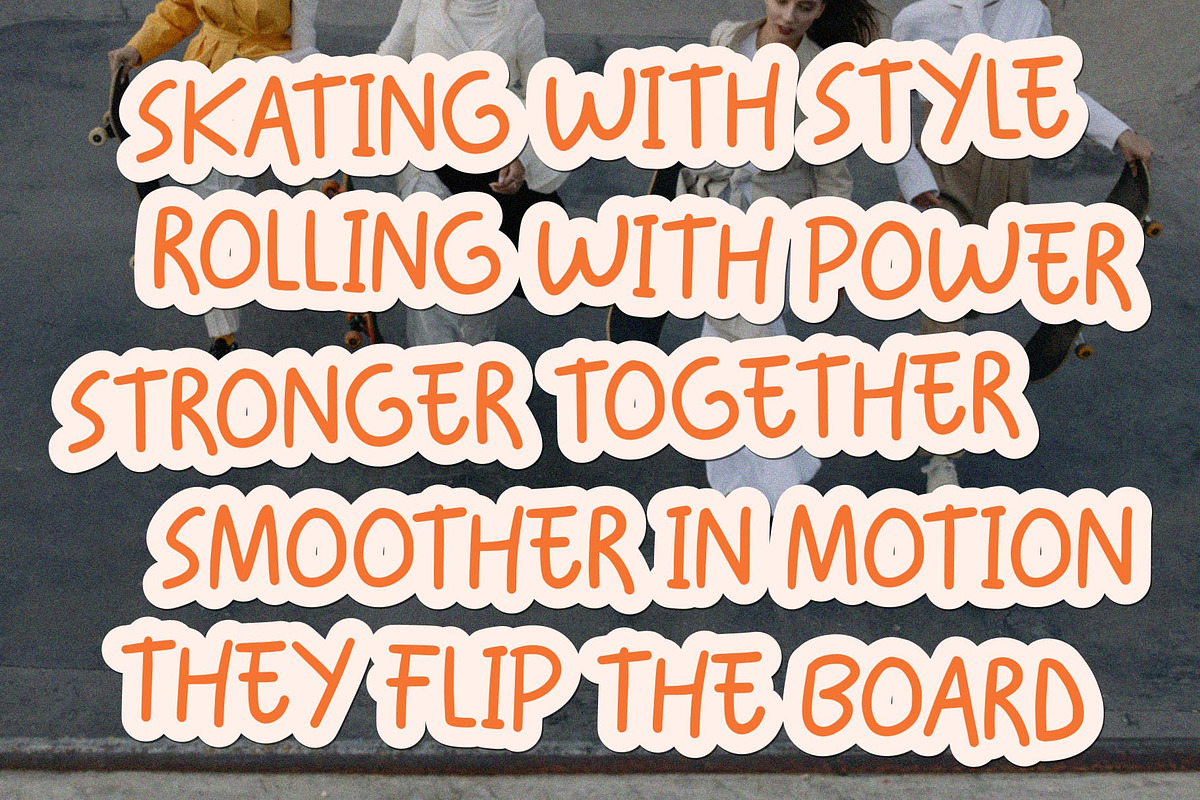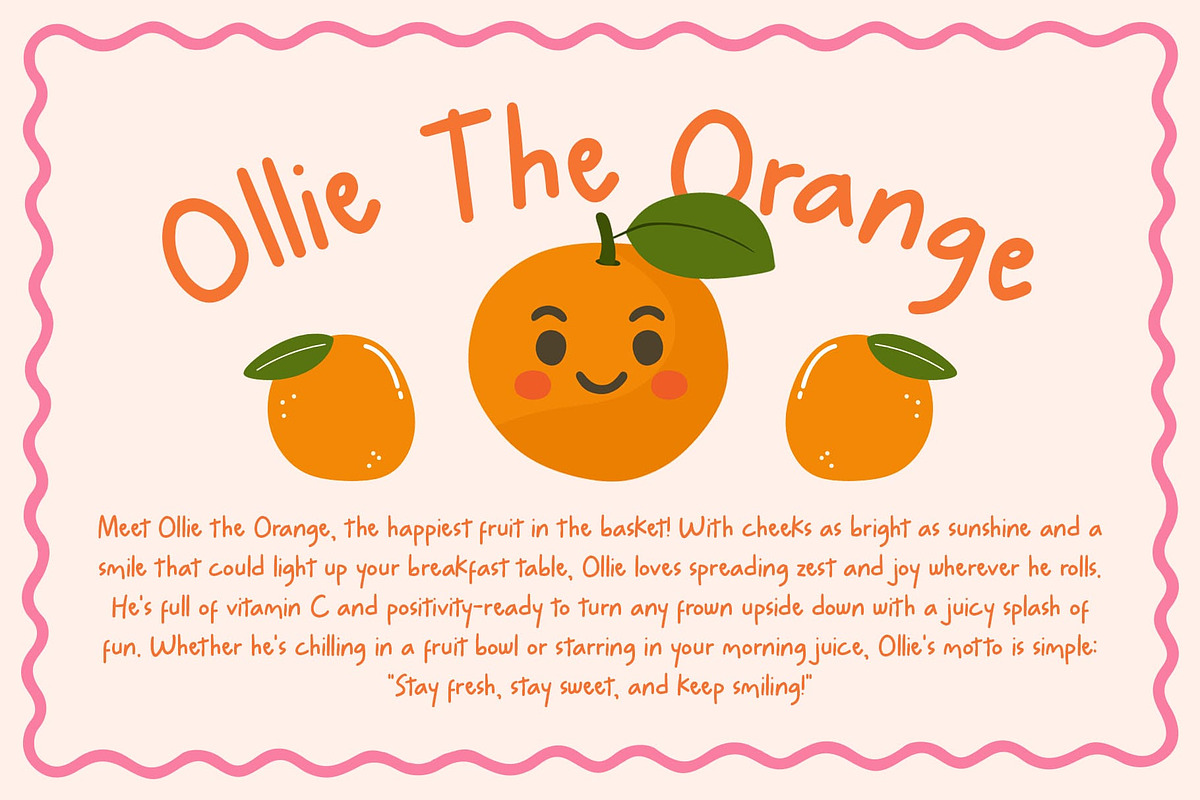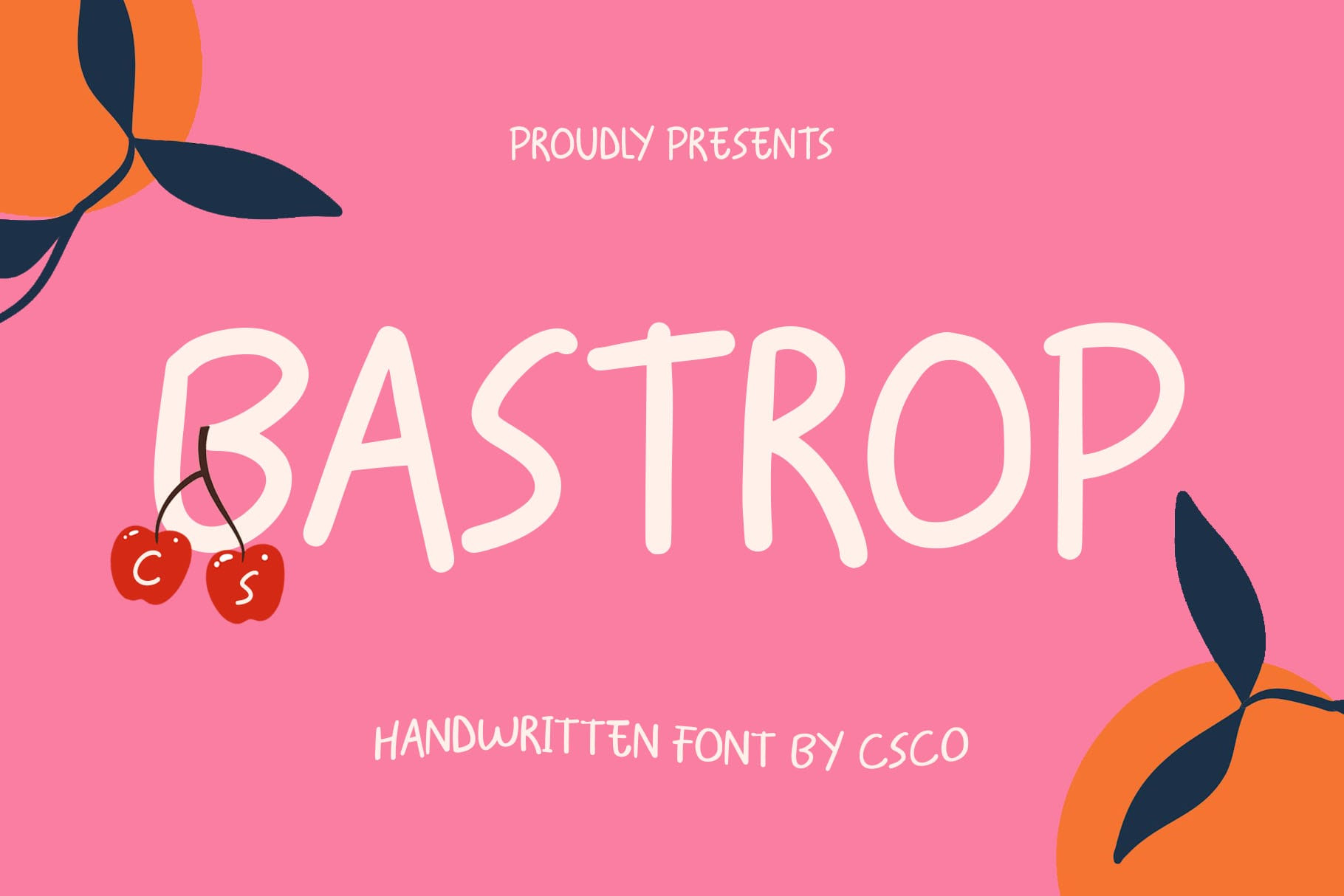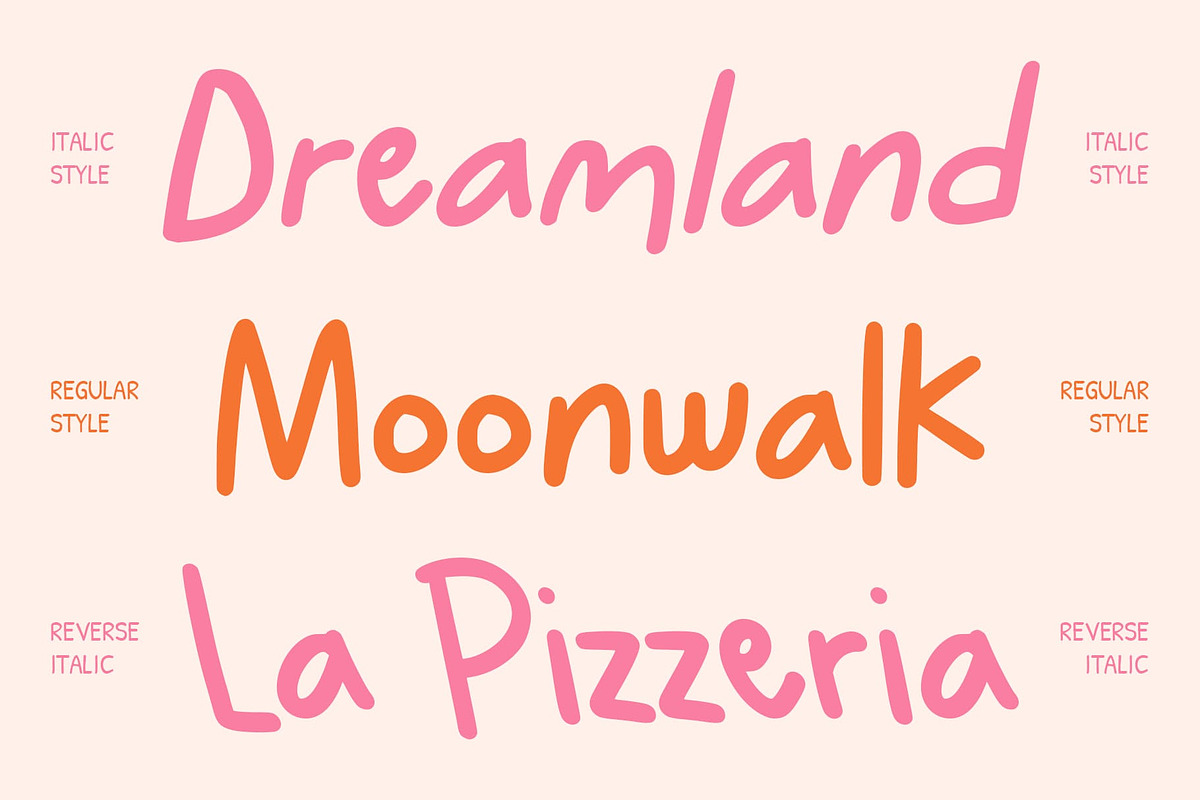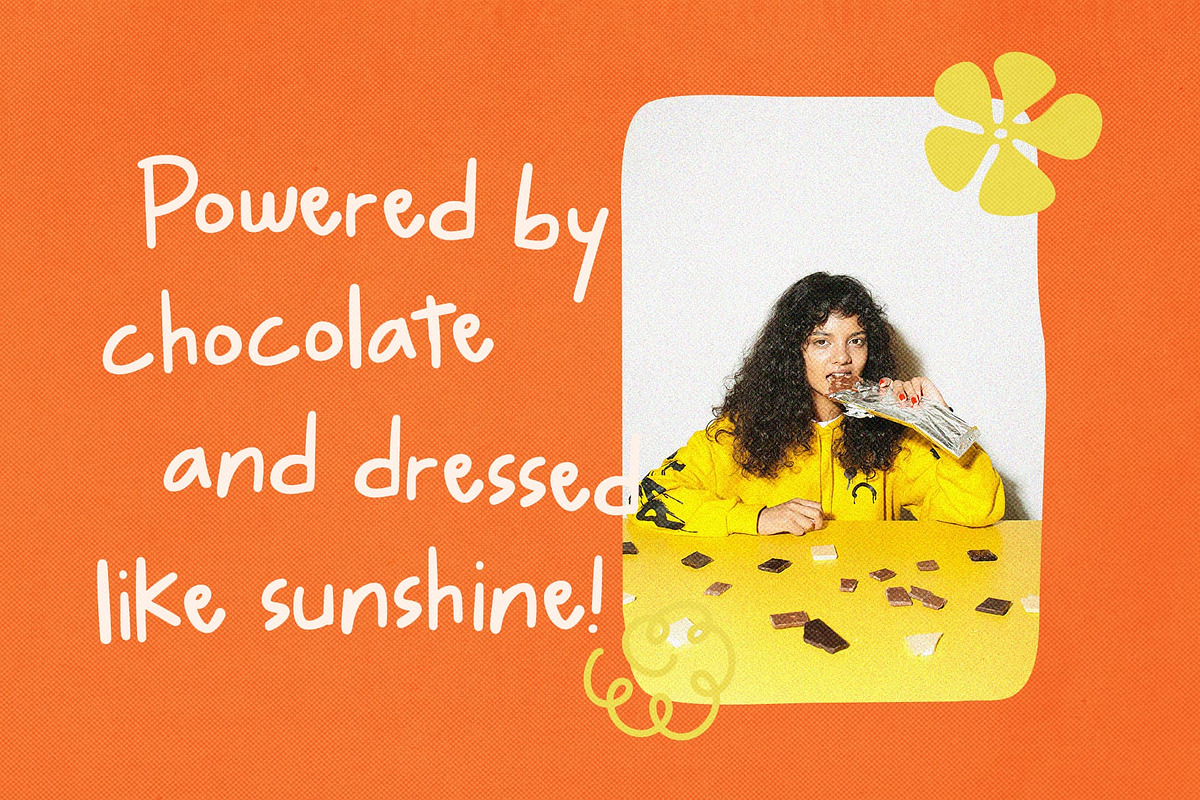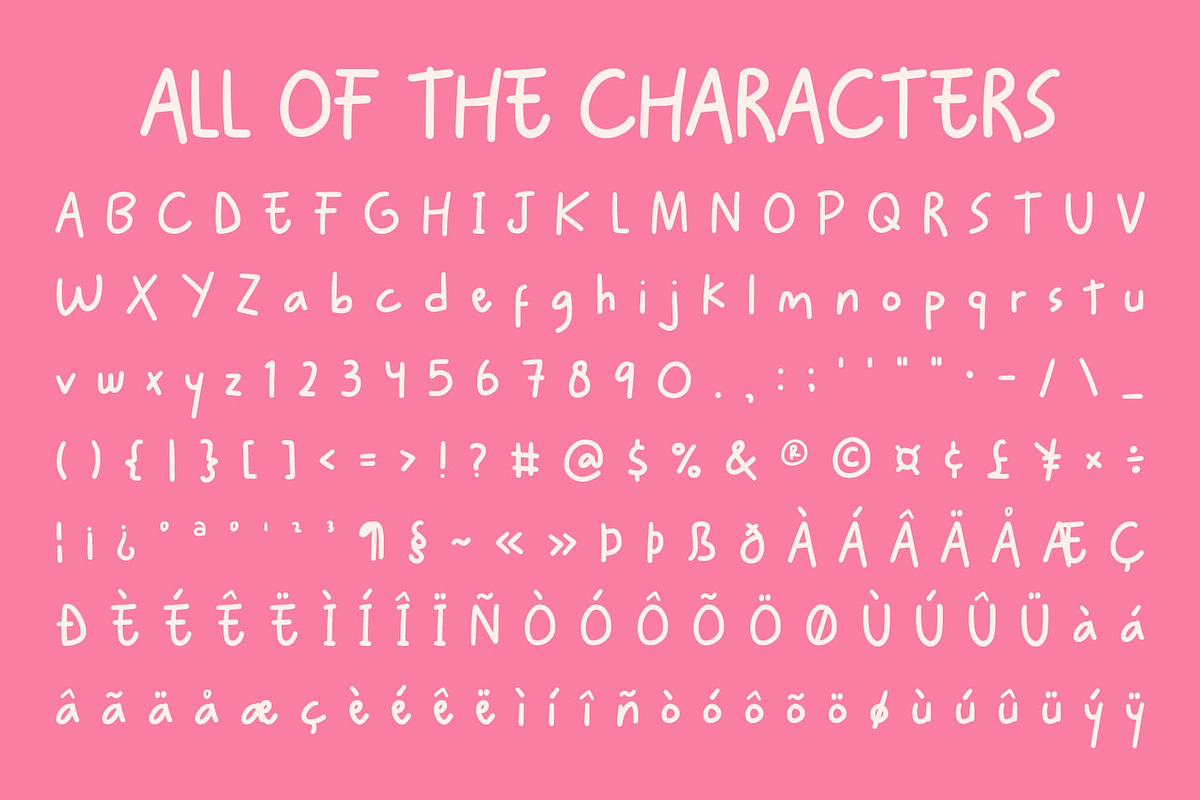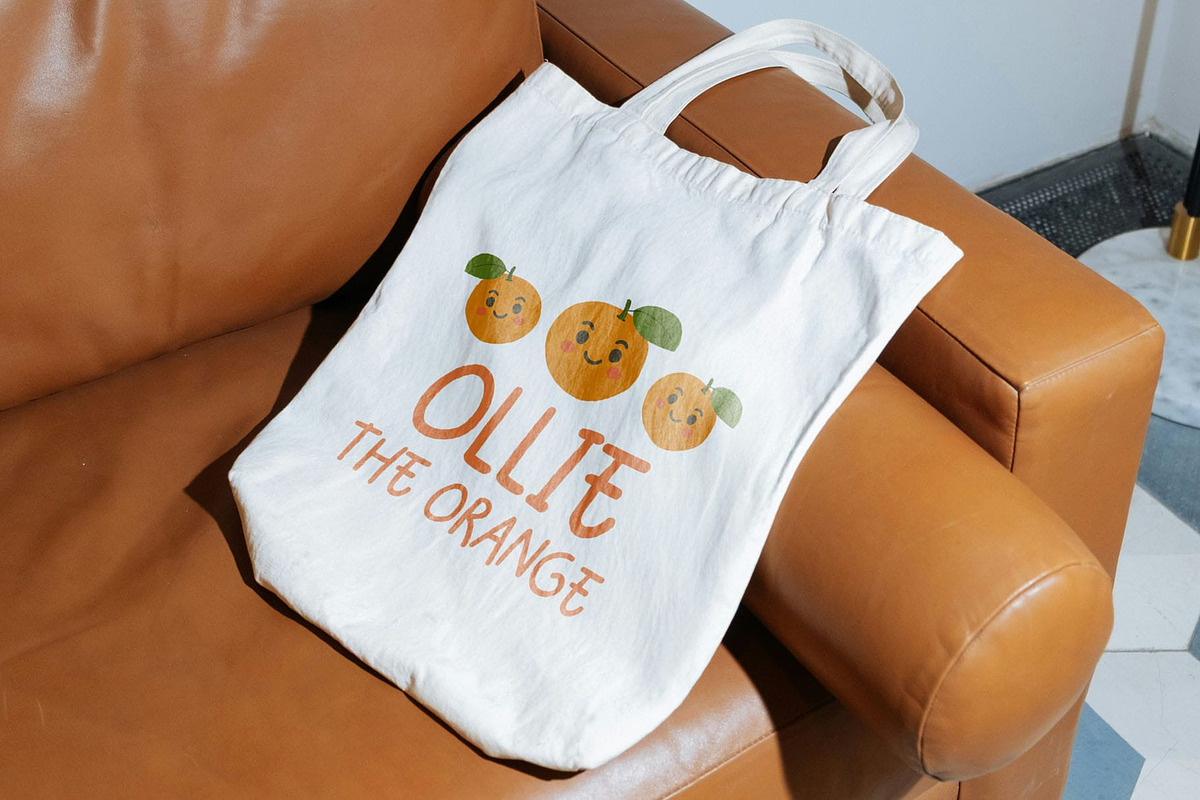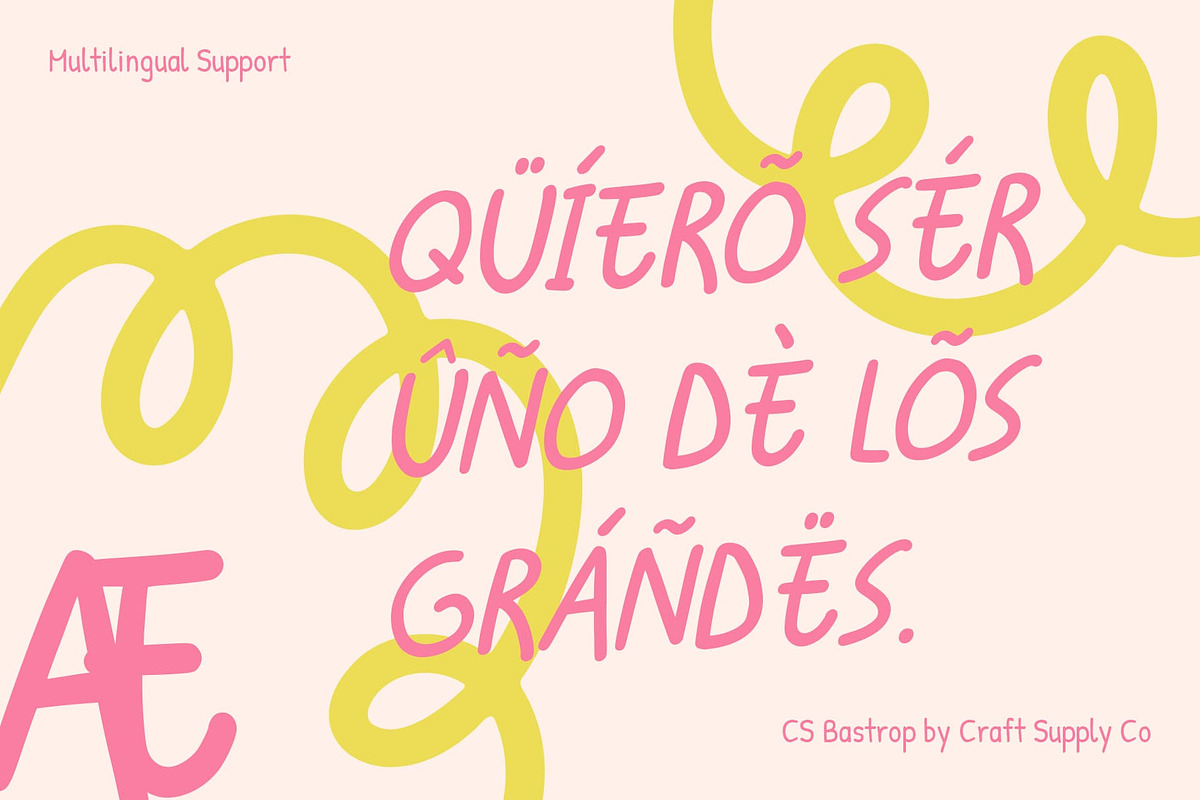
CS Bastrop – Cute Handwritten Font
CS Bastrop: Where Playfulness Meets Personality
Cute Handwritten Sans Serif Font This is a cute handwritten sans serif font that radiates charm and cheerfulness in every stroke. With its rounded shapes and smooth, friendly lines, this font captures a sense of warmth and approachability. Designed to evoke smiles, brings an inviting and joyful character to any project that celebrates creativity and fun.
Rounded Shapes for a Friendly Feel The rounded forms and soft edges of this font give it a friendly, approachable personality. Each letter feels natural and hand-drawn, adding a touch of spontaneity and joy to your typography. This makes it perfect for designs aimed at children, families, or audiences seeking a lighthearted, human touch.
Playful Energy for Creative Projects This is designed to bring fun and energy to your layouts. Its handwritten feel and cheerful rhythm make every word look lively and expressive. Ideal for party invitations, children’s books, greeting cards, or playful branding, it instantly uplifts your design with an easygoing and positive vibe.
Perfect for Fun and Whimsical Designs Whether you’re designing a kids’ project, crafting a joyful logo, or creating colorful posters, adapts effortlessly to any fun, creative theme. Its balance of handwritten charm and sans serif simplicity makes it versatile and eye-catching. With this font, every design feels fresh, friendly, and full of personality.